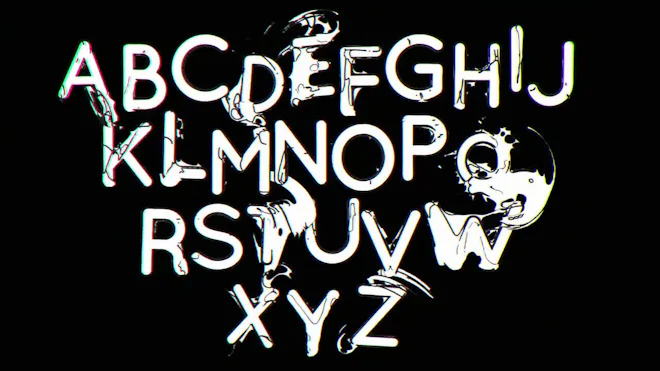
This stock motion graphics video pack includes 43 different clips of white cartoon typeface of letters, numbers, and symbols on a transparent alpha channel.